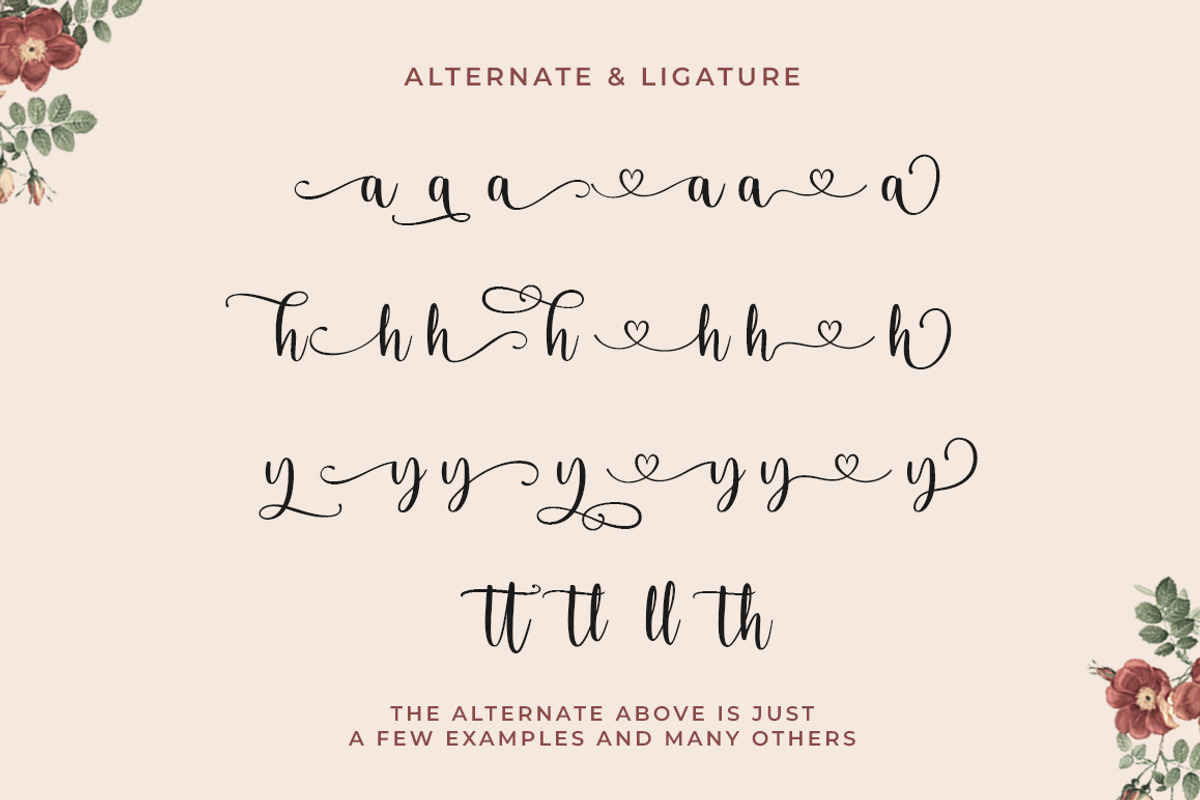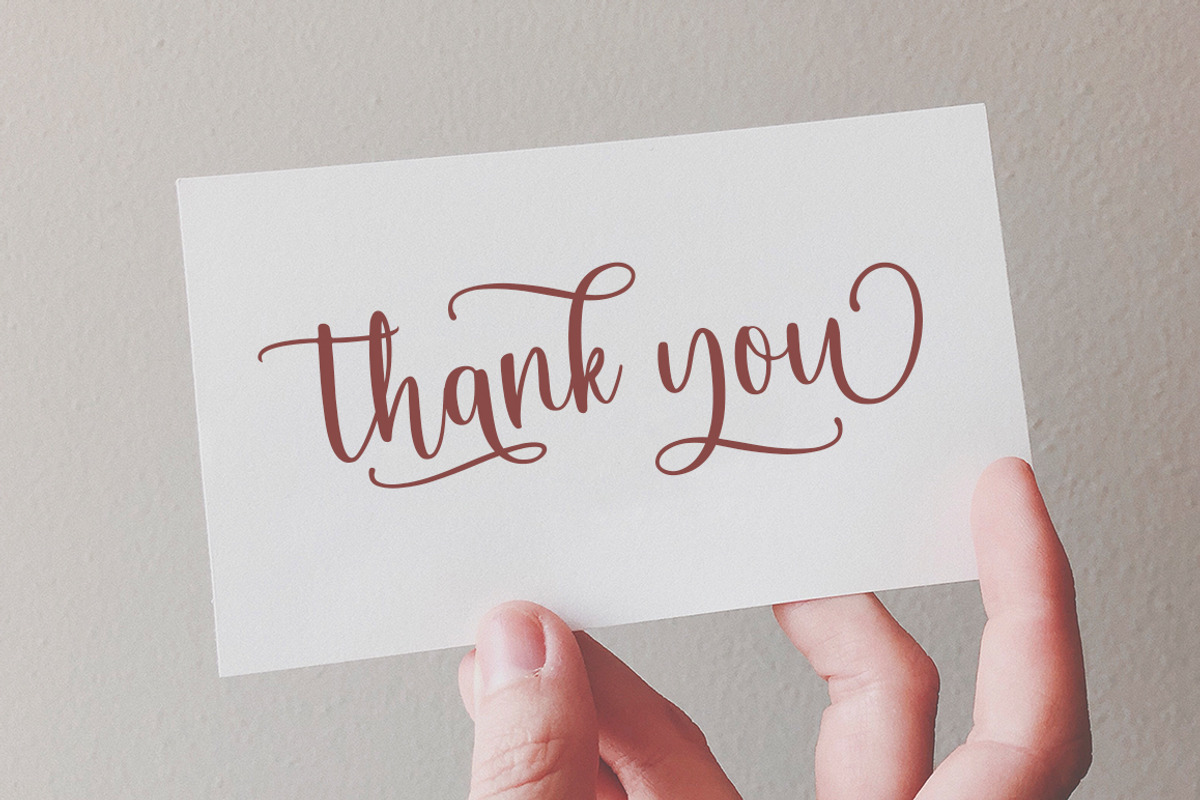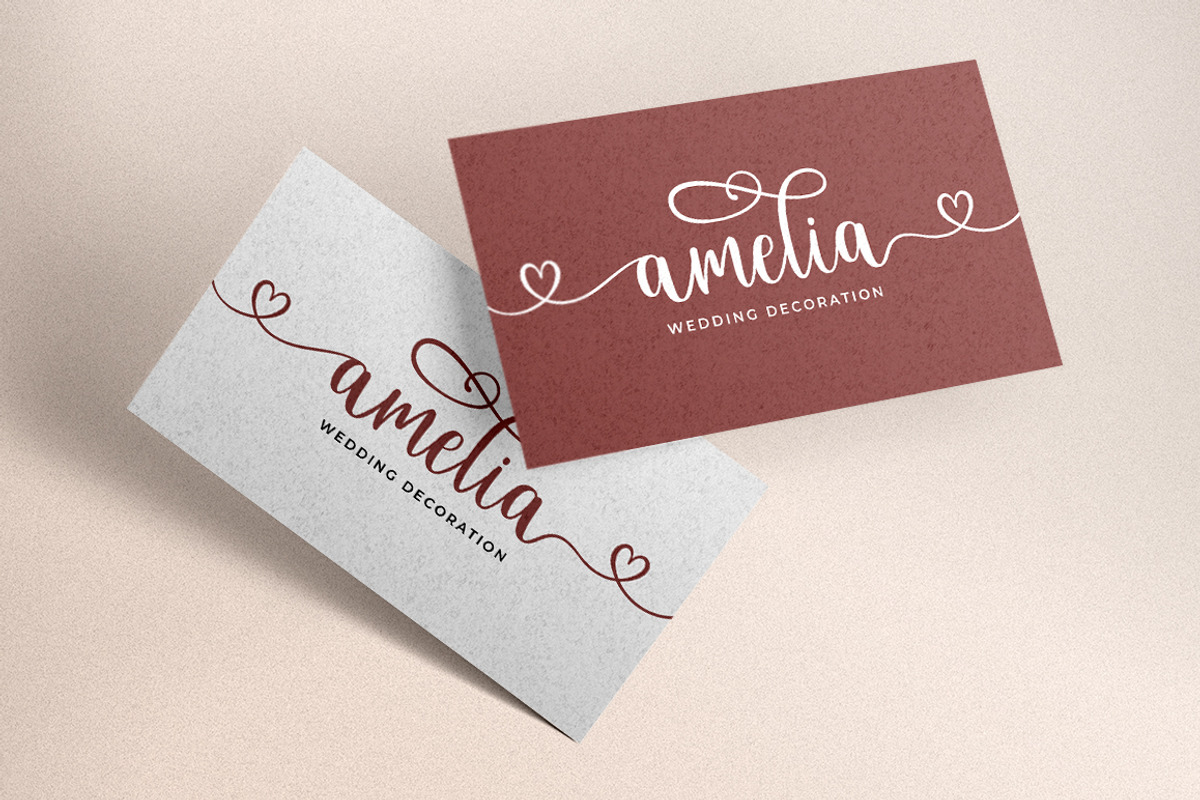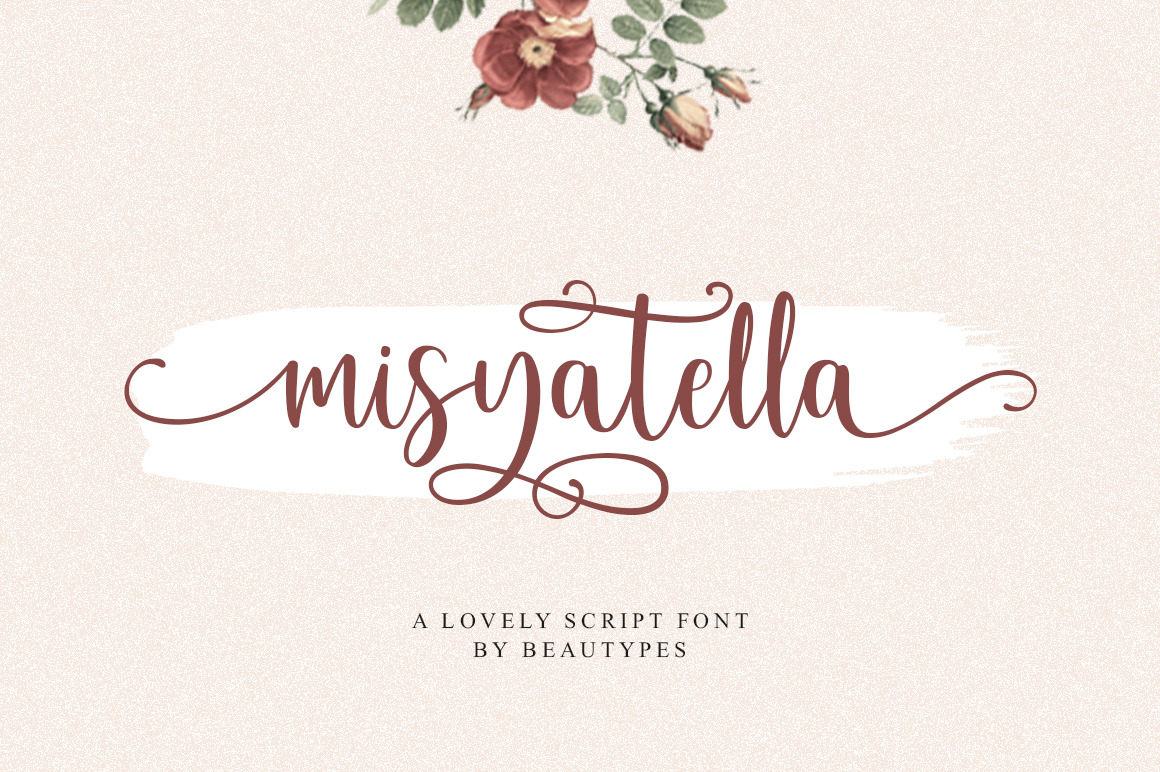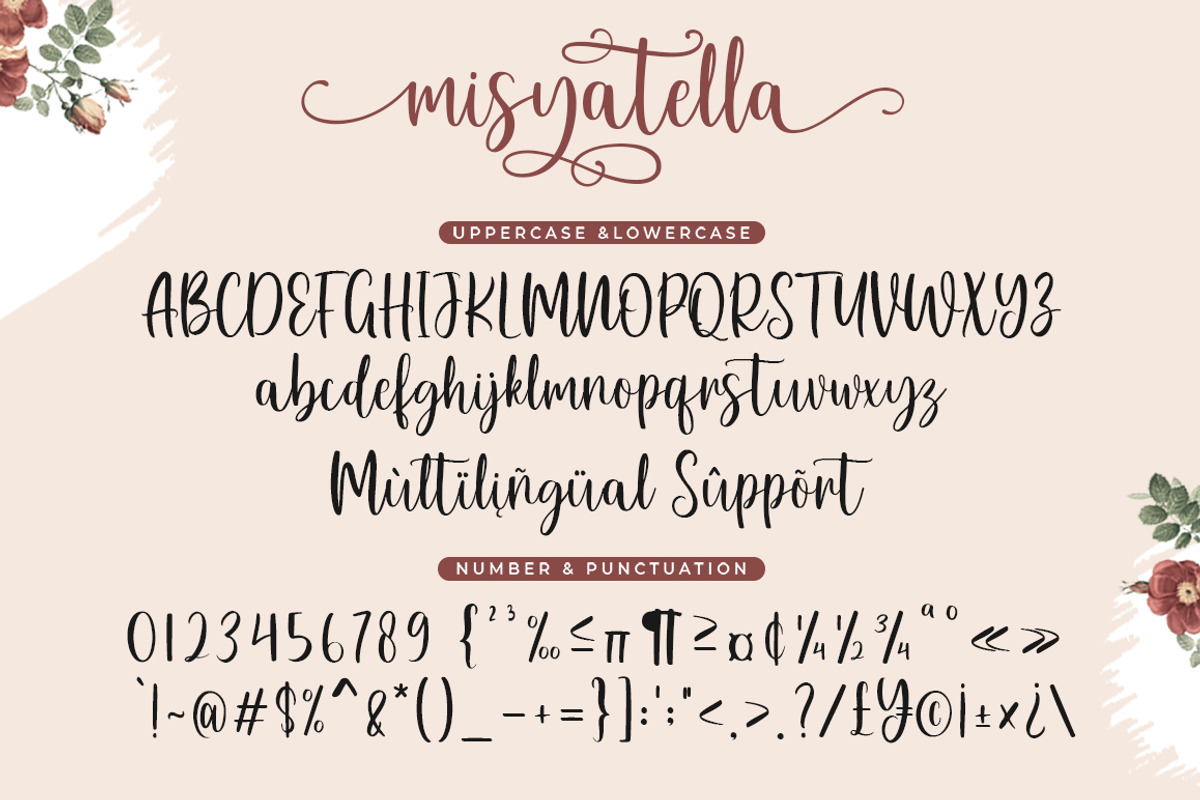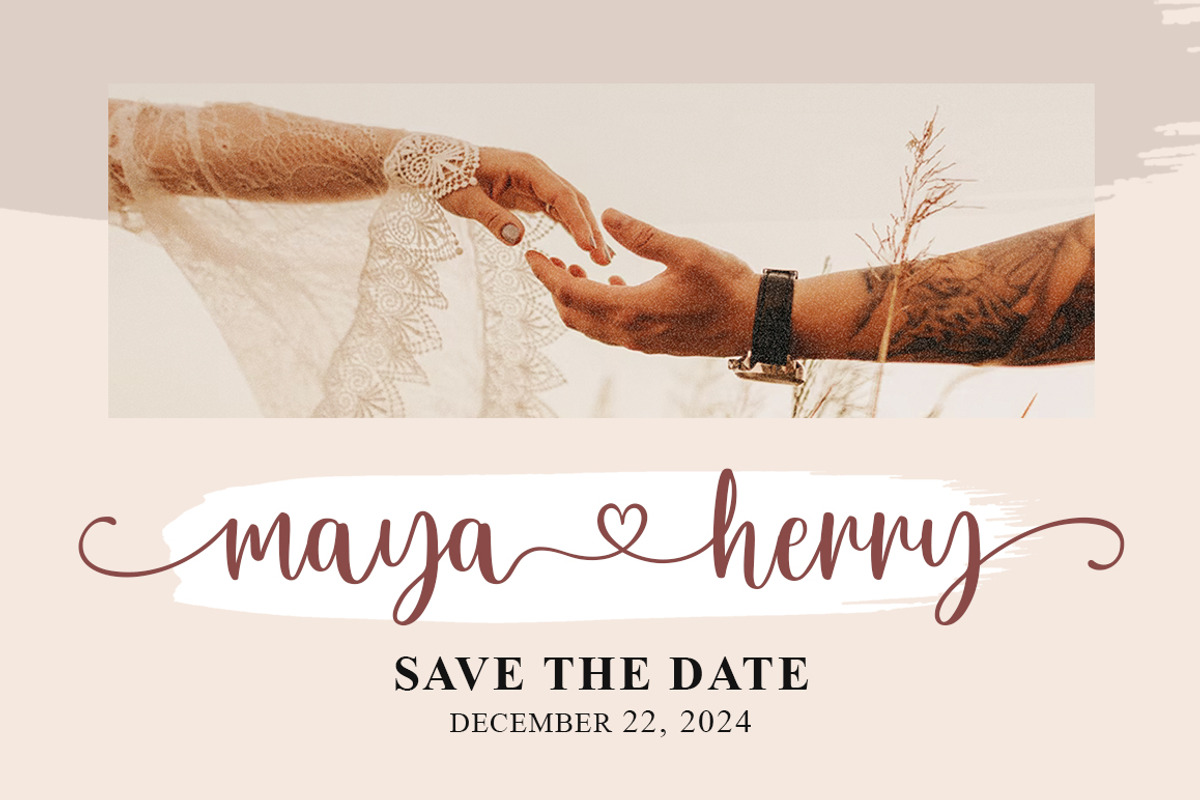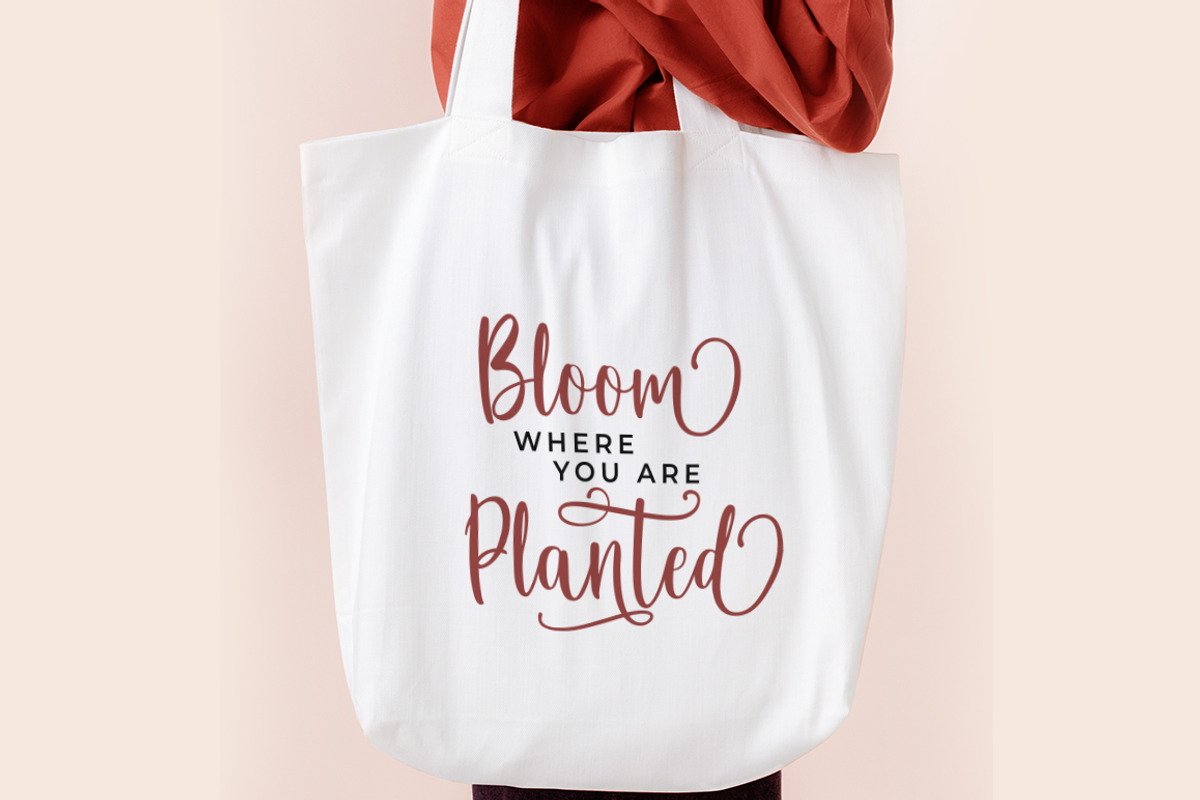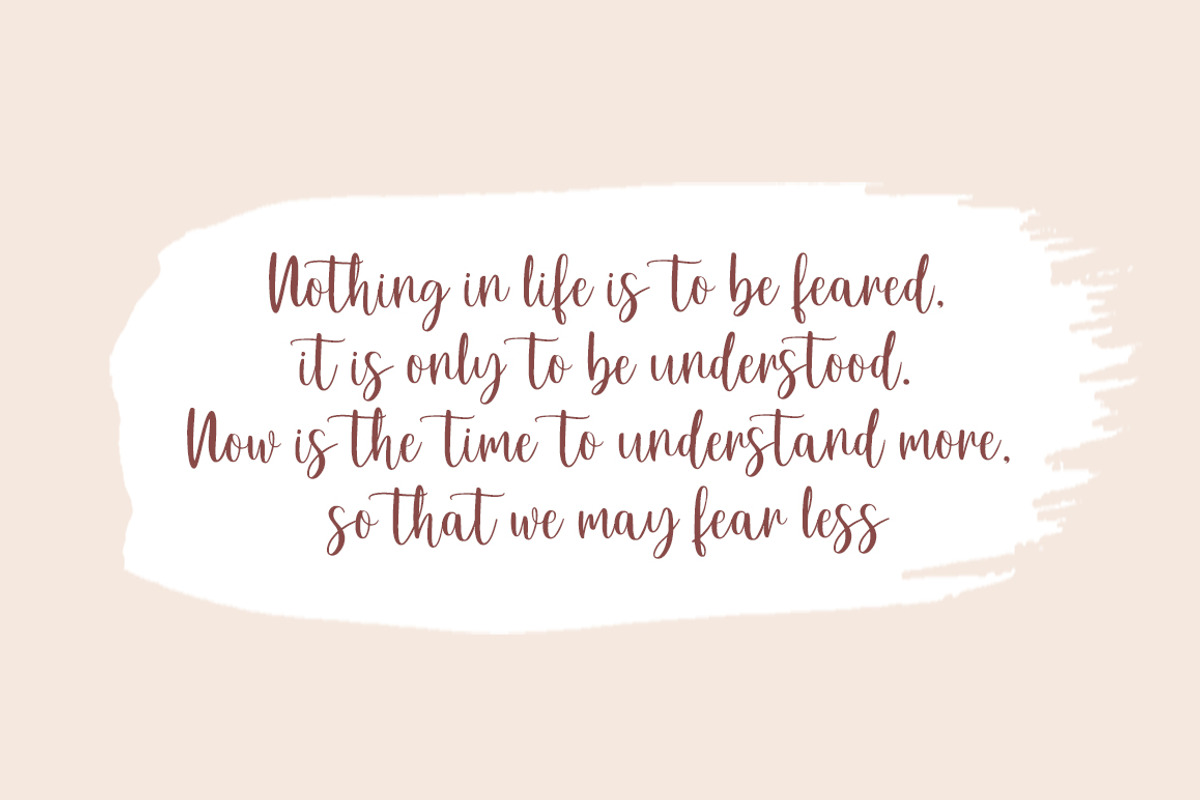
Misyatella - a handwritten font
Misyatella embodies a delicate and rejuvenating handwritten font, igniting a wellspring of creativity with its profoundly romantic ambiance. This font is a superlative choice for a plethora of design applications, including but not limited to invitations, logo and branding development, photography, advertising, watermarks, social media content, product packaging, product design, labels, wedding collateral, stationery, special events, and any project that demands a refined and handwritten aesthetic.